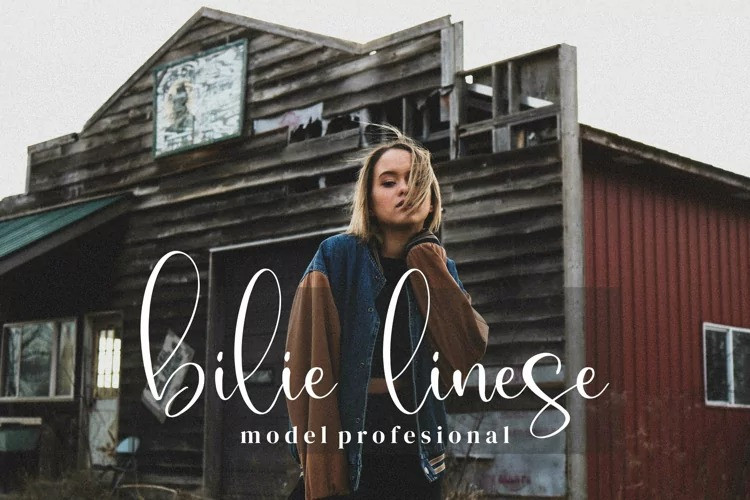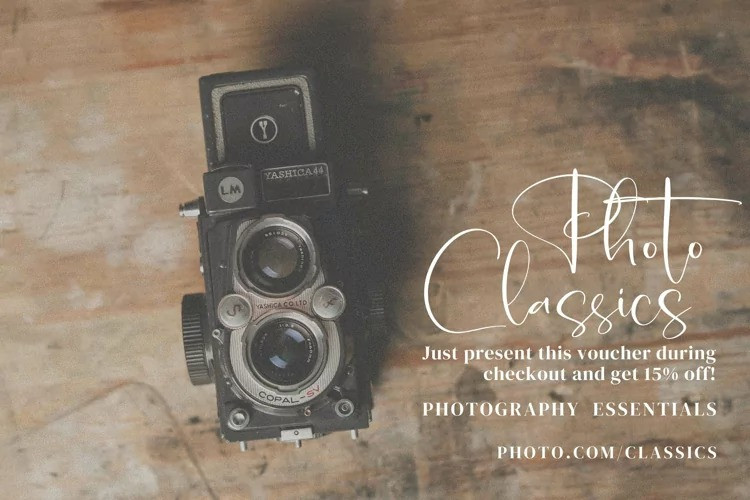
Rafalza Calligraphy Font
Rafalza is a beautiful light handwritten font with a unique feel and a stunning impact. This font is neatly crafted and highly detailed. It will add a luxury spark to any design project that you wish to create!